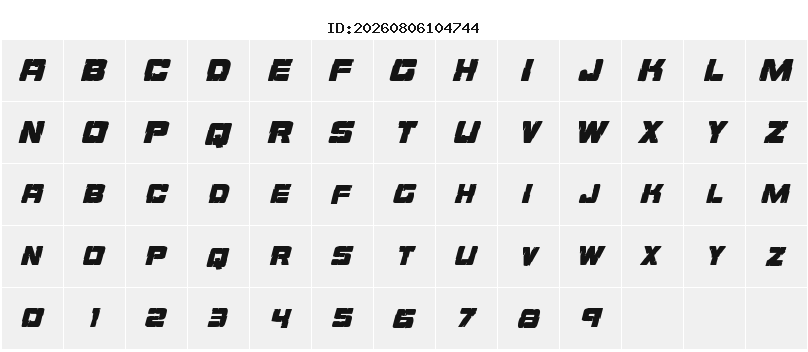
Ore Crusher Condensed Italic Preview
• Font Name: Ore Crusher Condensed Italic
• Font Style: Condensed Italic
• Full Font Name: Ore Crusher Condensed Italic
About Ore Crusher Condensed Italic.ttf
Ore Crusher Condensed Italic.ttf is a modern, elegant sans-serif font designed for ultimate readability and visual harmony. Perfect for branding, headlines, web design, and print materials.